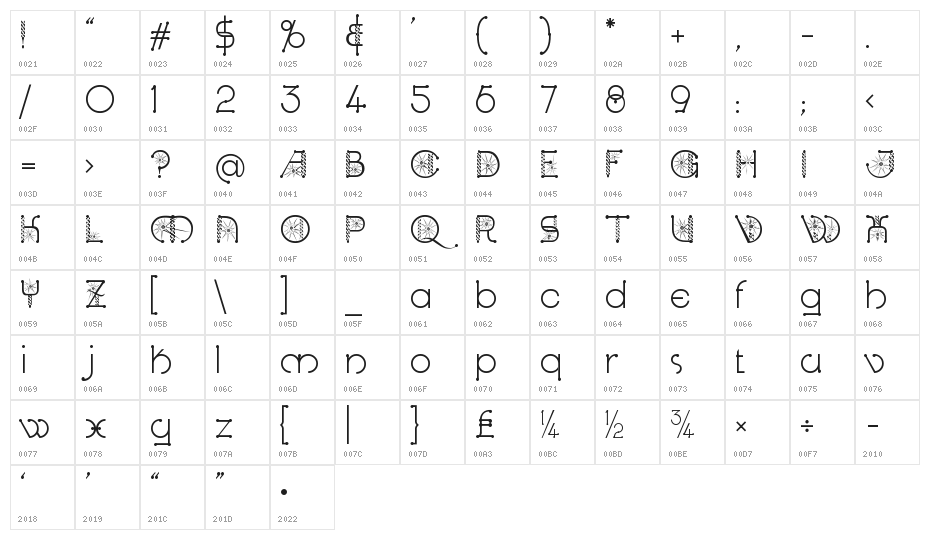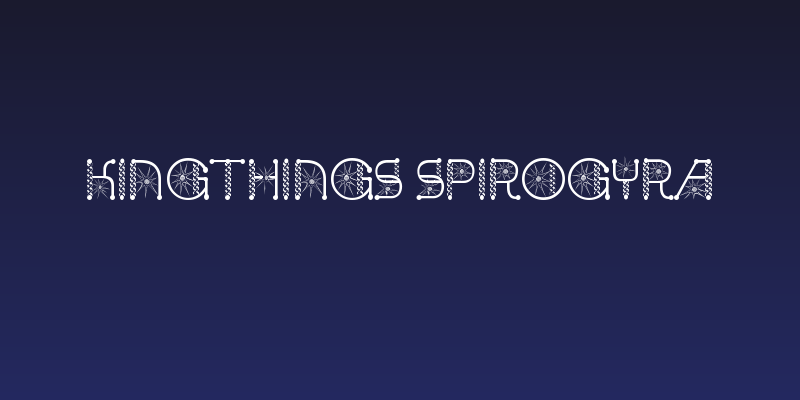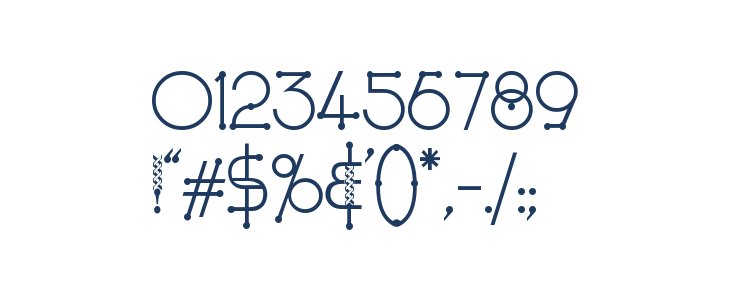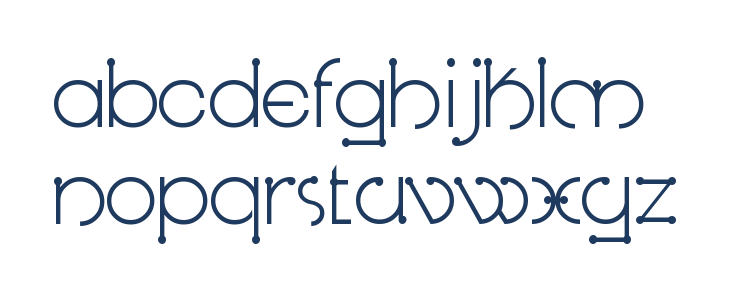
Kingthings Spirogyra Font
Kingthings Spirogyra Description
This font features a whimsical and decorative style, characterized by intricate patterns and playful elements within the letterforms. The uppercase letters are adorned with floral and spiral motifs, creating a unique and artistic appearance. The lowercase letters maintain a simpler, yet still decorative design, with rounded edges and subtle embellishments. The numerals and special characters continue the theme with consistent decorative elements, making the font suitable for creative and artistic projects. The overall design is both eye-catching and imaginative, perfect for adding a touch of flair to any text.
| Use Case | Headlines, Logos, Artistic projects |
| Proposed Projects | Ideal for creative projects such as invitations, greeting cards, posters, and artistic branding. |